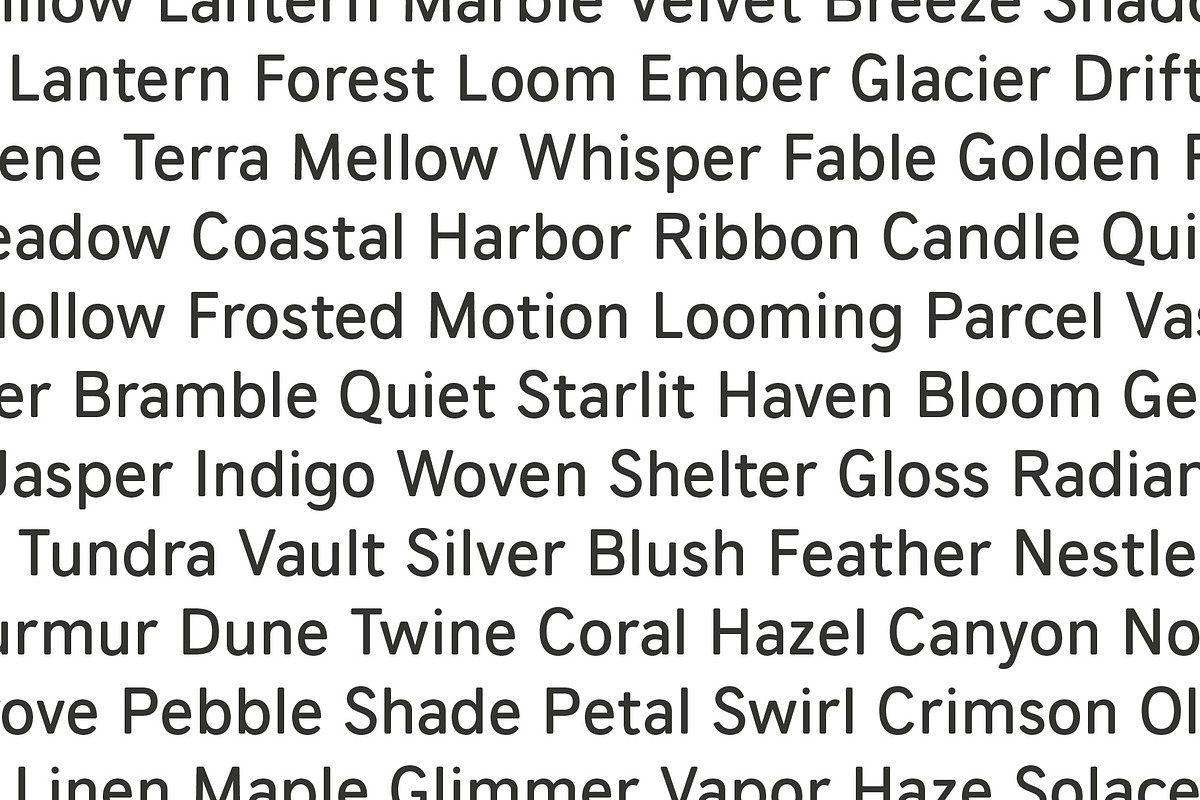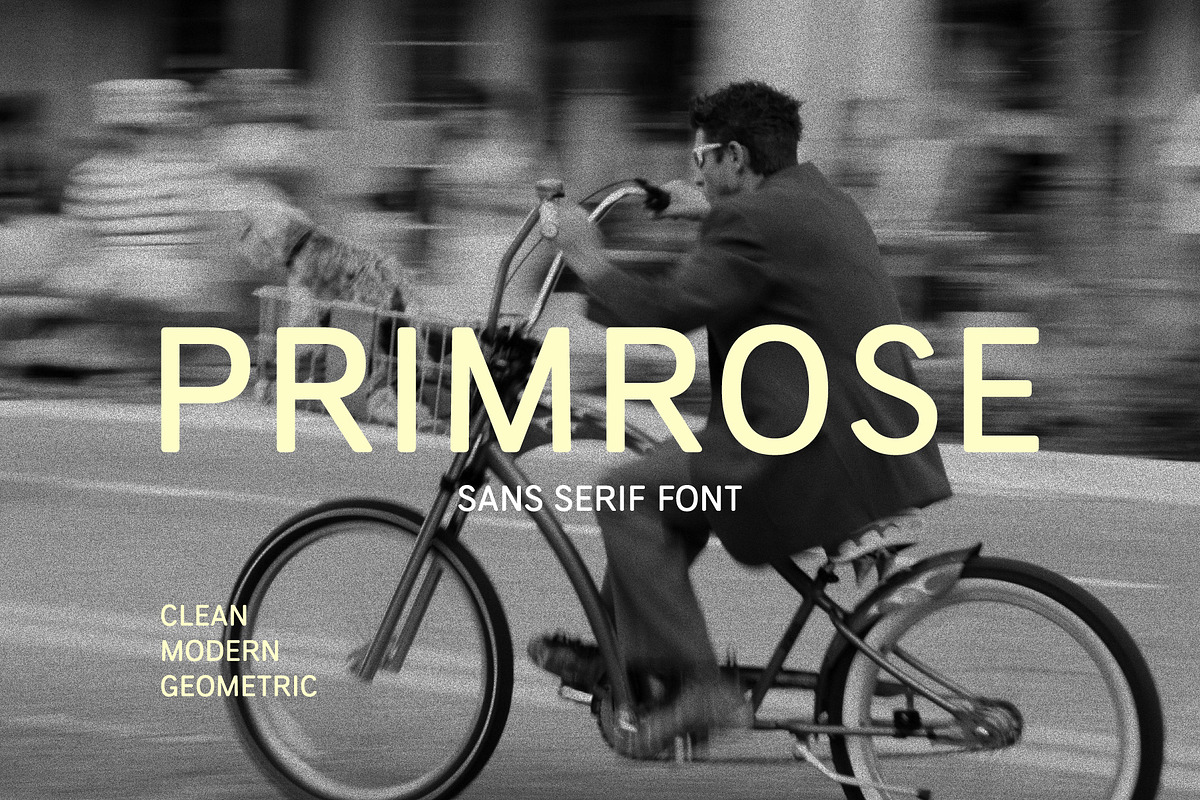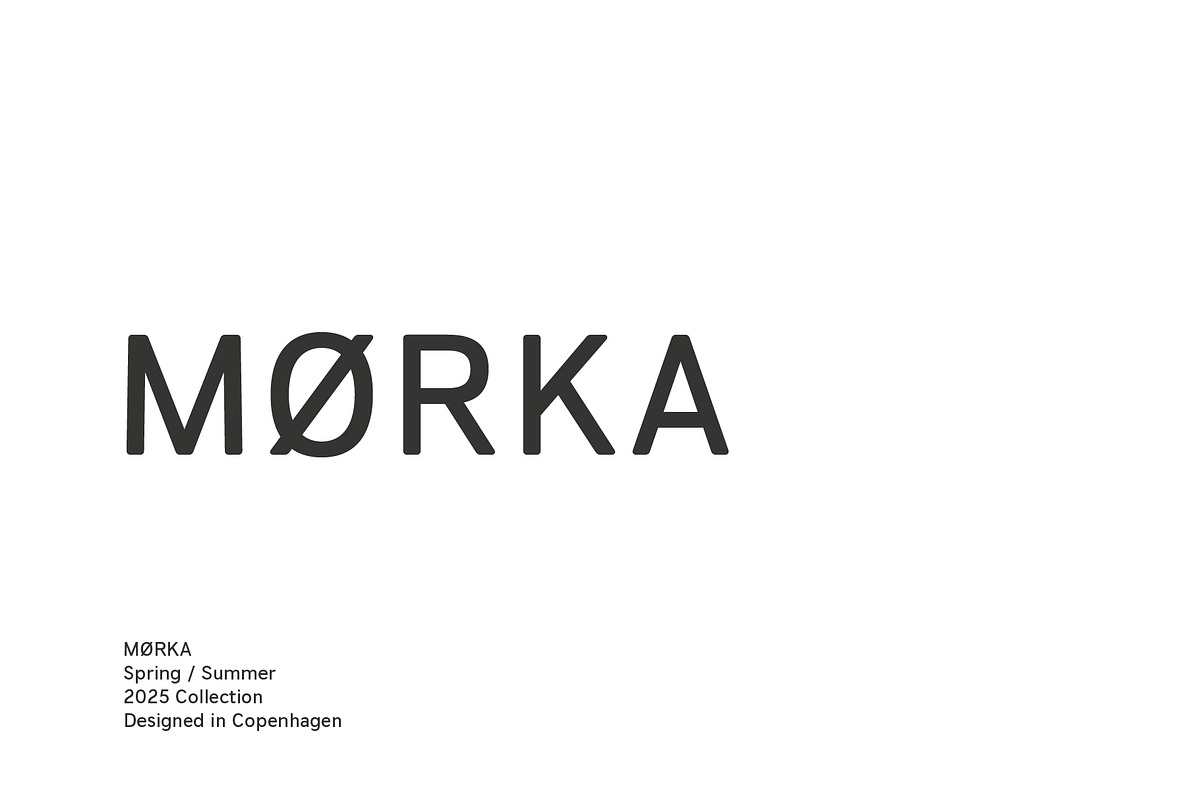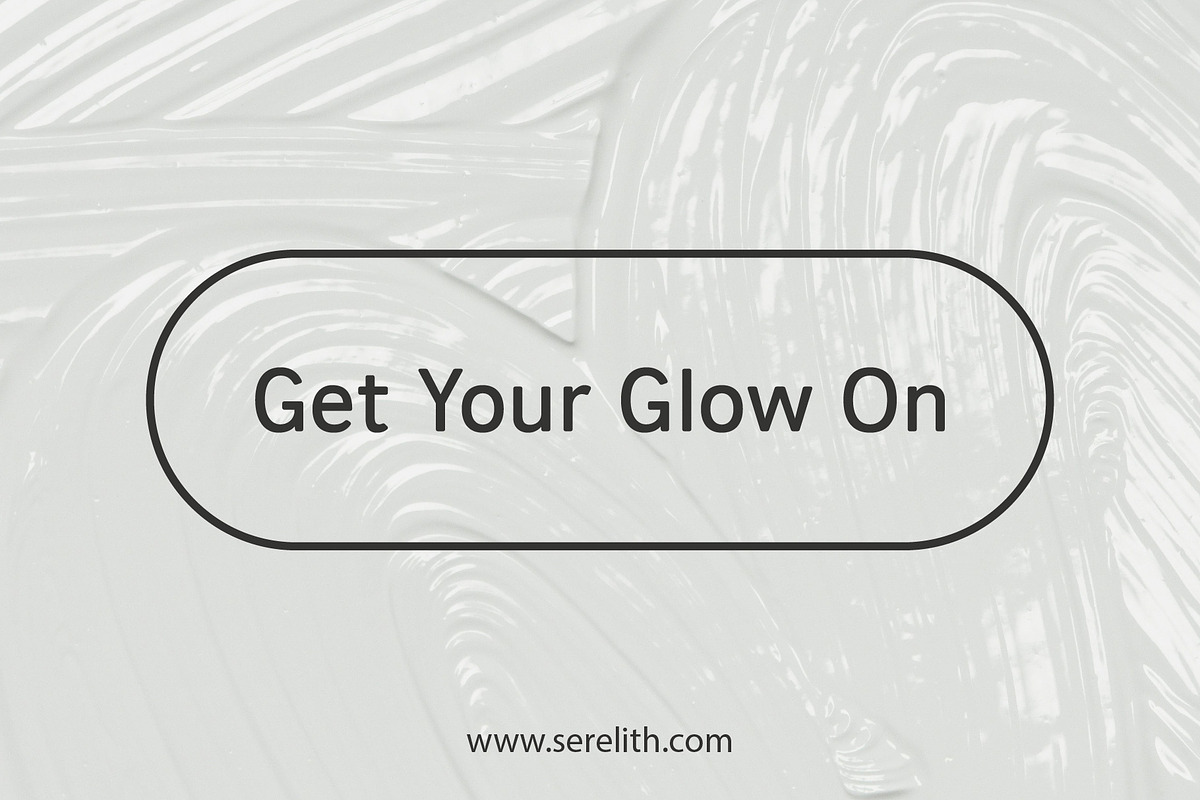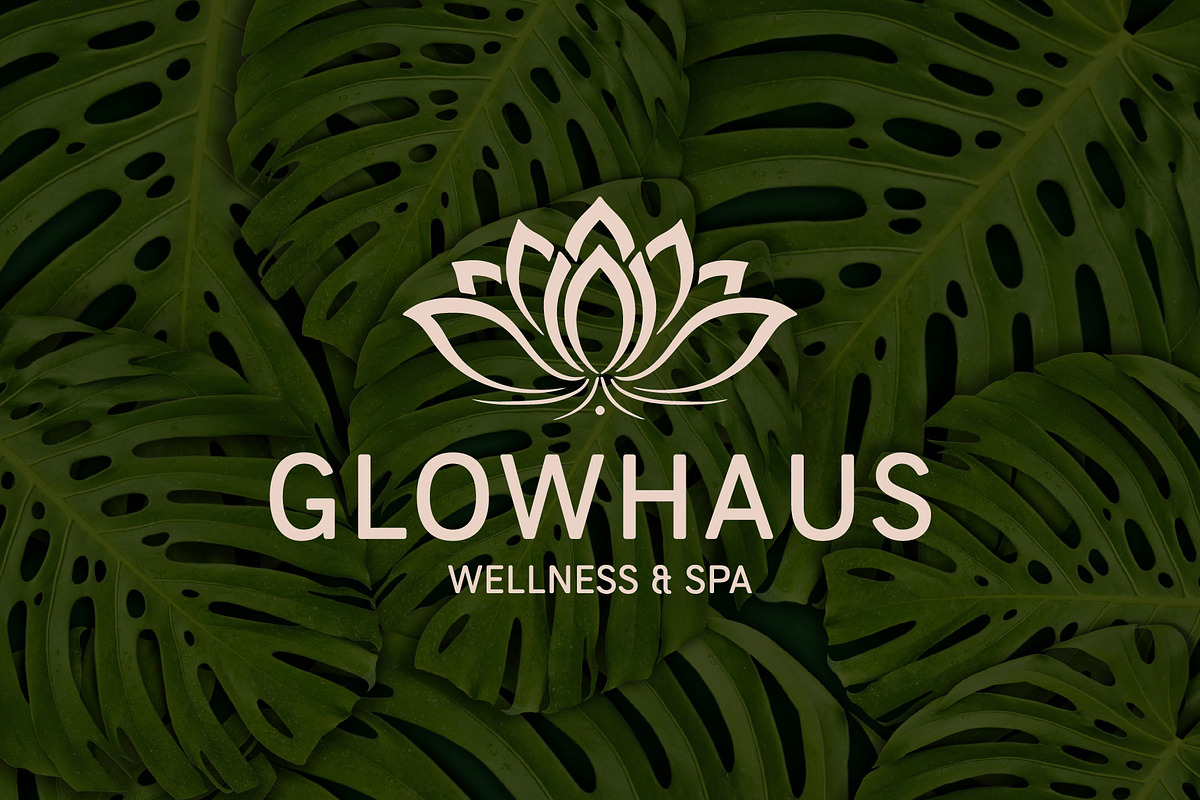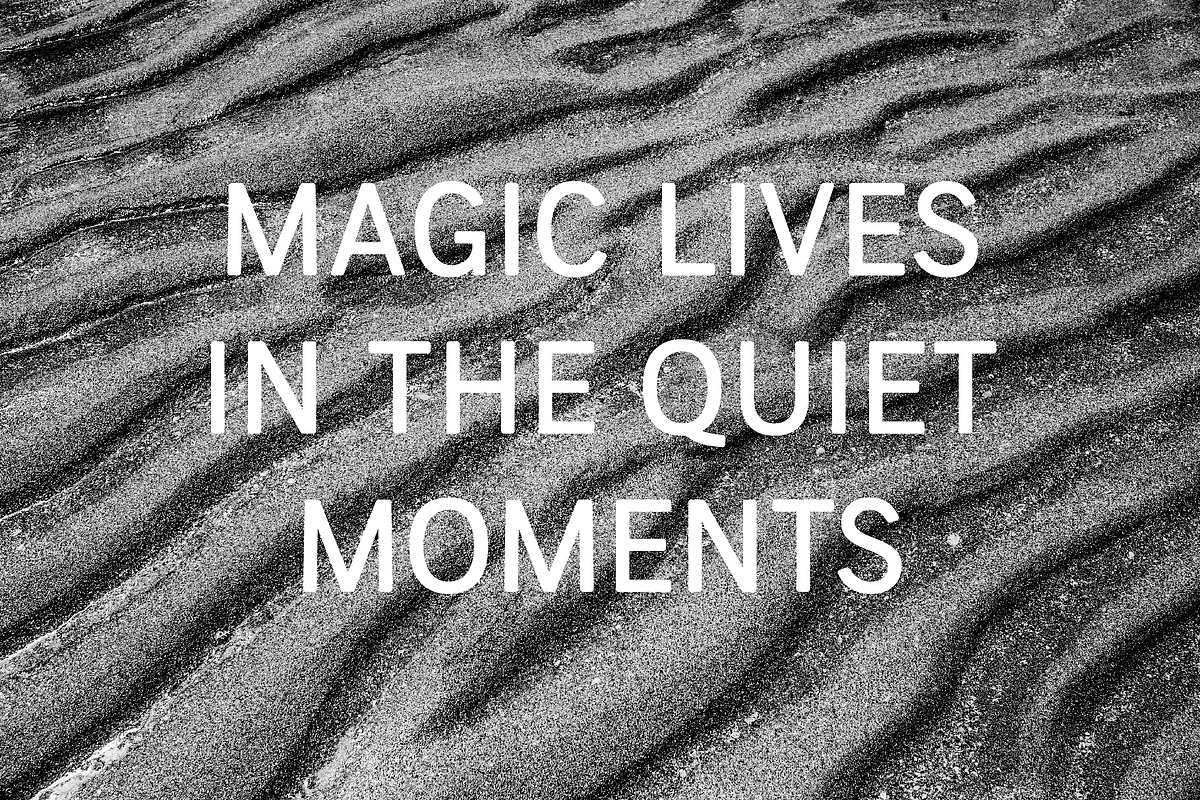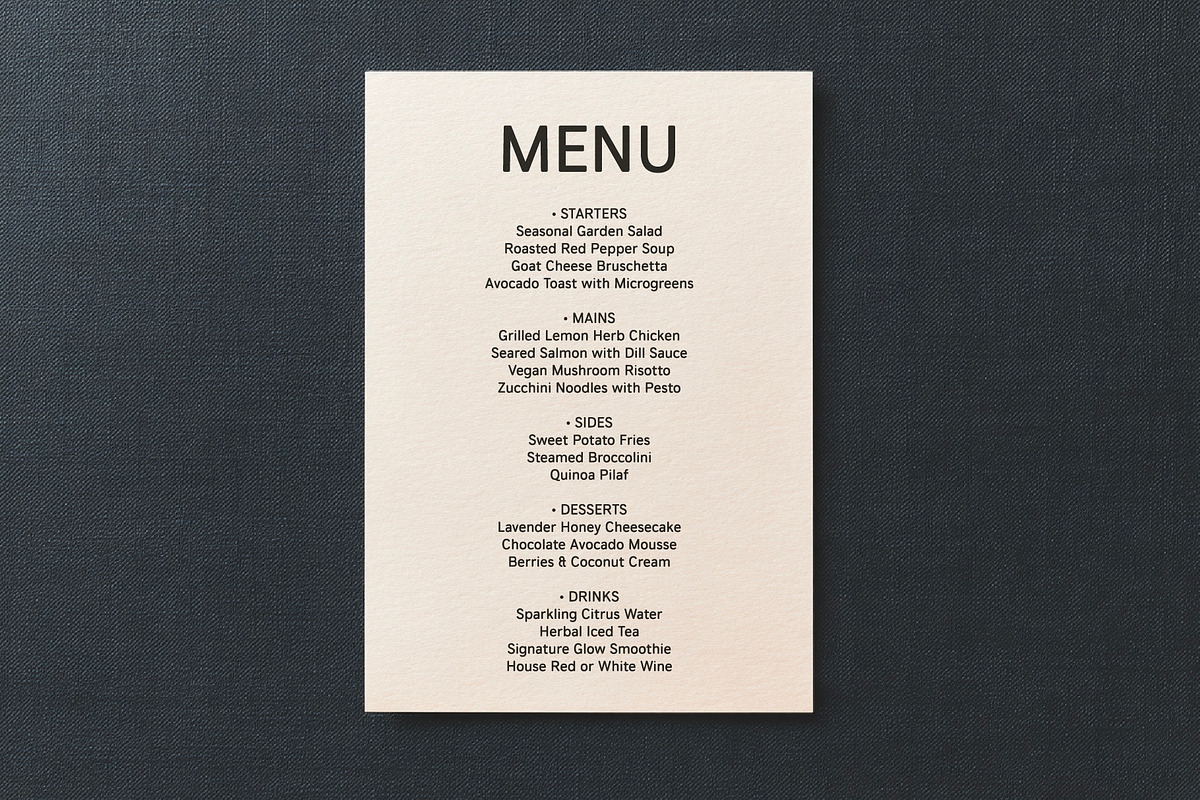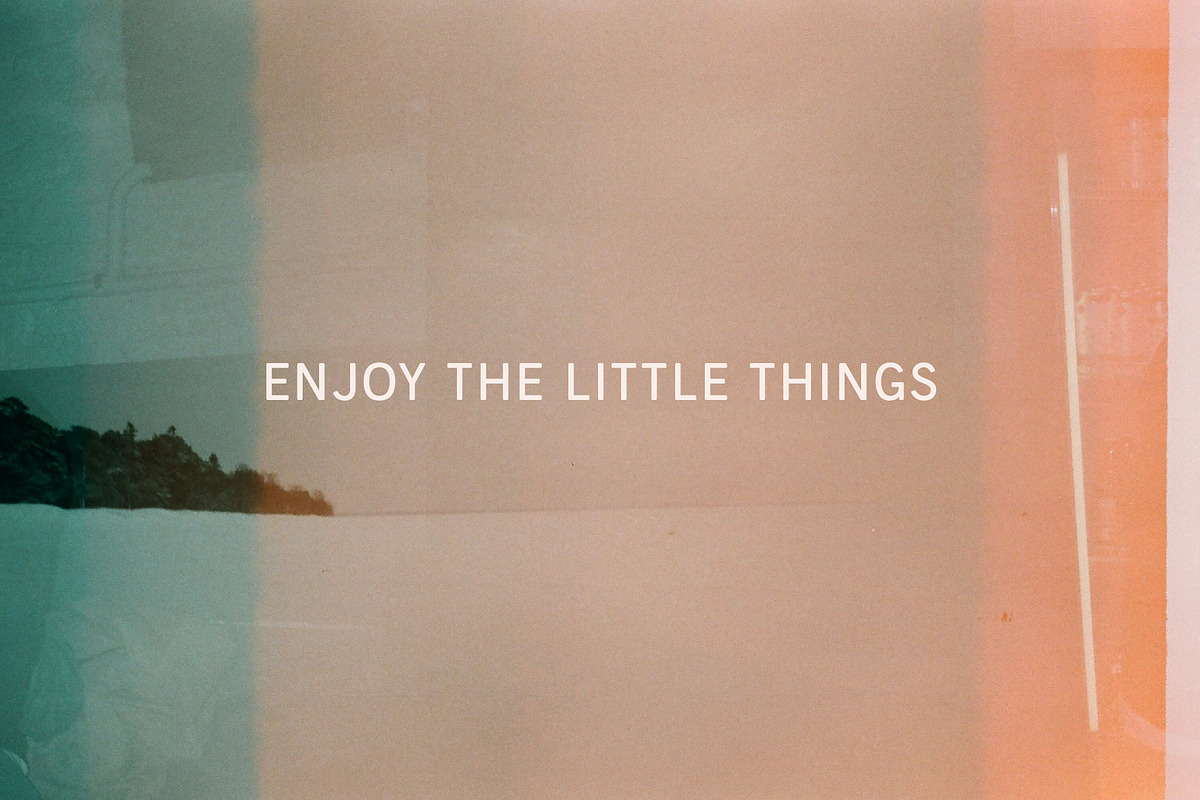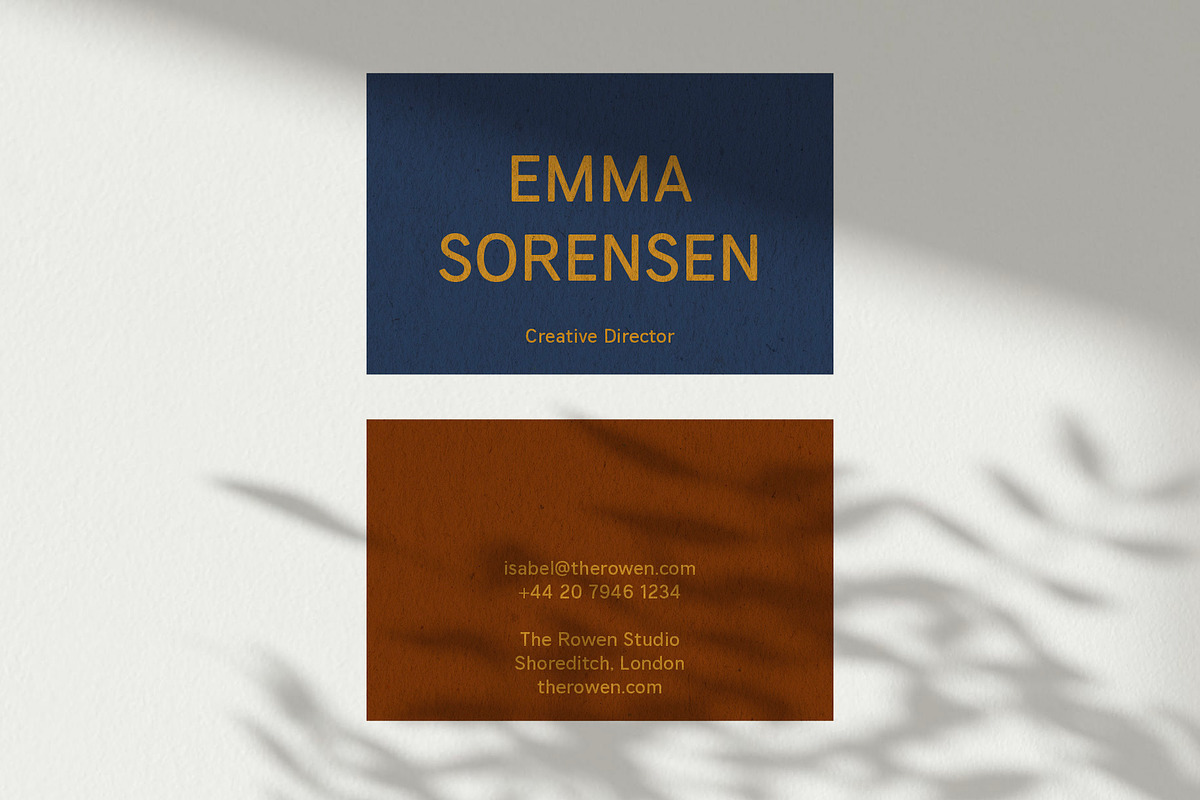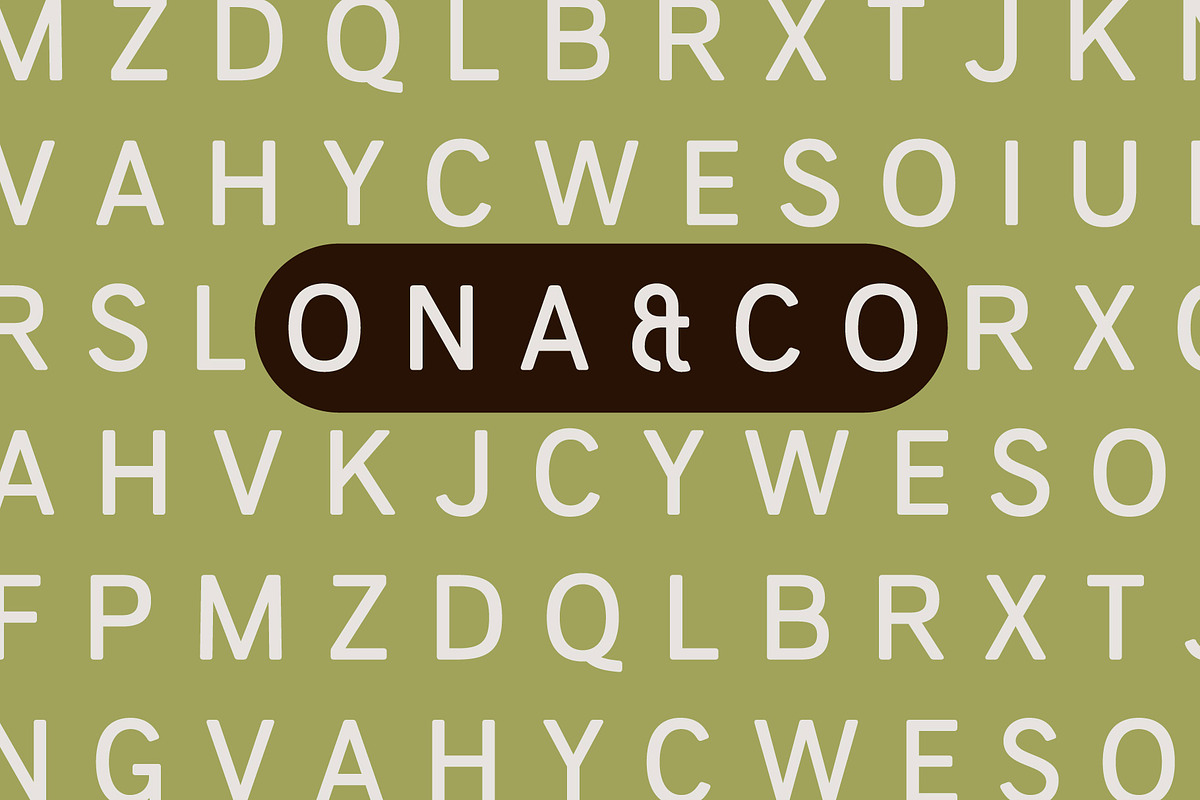
Primrose Sans Serif Font
Primrose is a clean, modern geometric sans serif font with soft curves and rounded corners. Designed for versatility, it blends contemporary minimalism with timeless elegance—perfect for branding, editorial, and digital interfaces.
Multilingual support for Basic Latin and Western European languages (English, German, Dutch, Spanish, Portuguese, Italian,
Icelandic, Danish, Norvegian, Swedish, Faroese, Romanian, Moldovan).